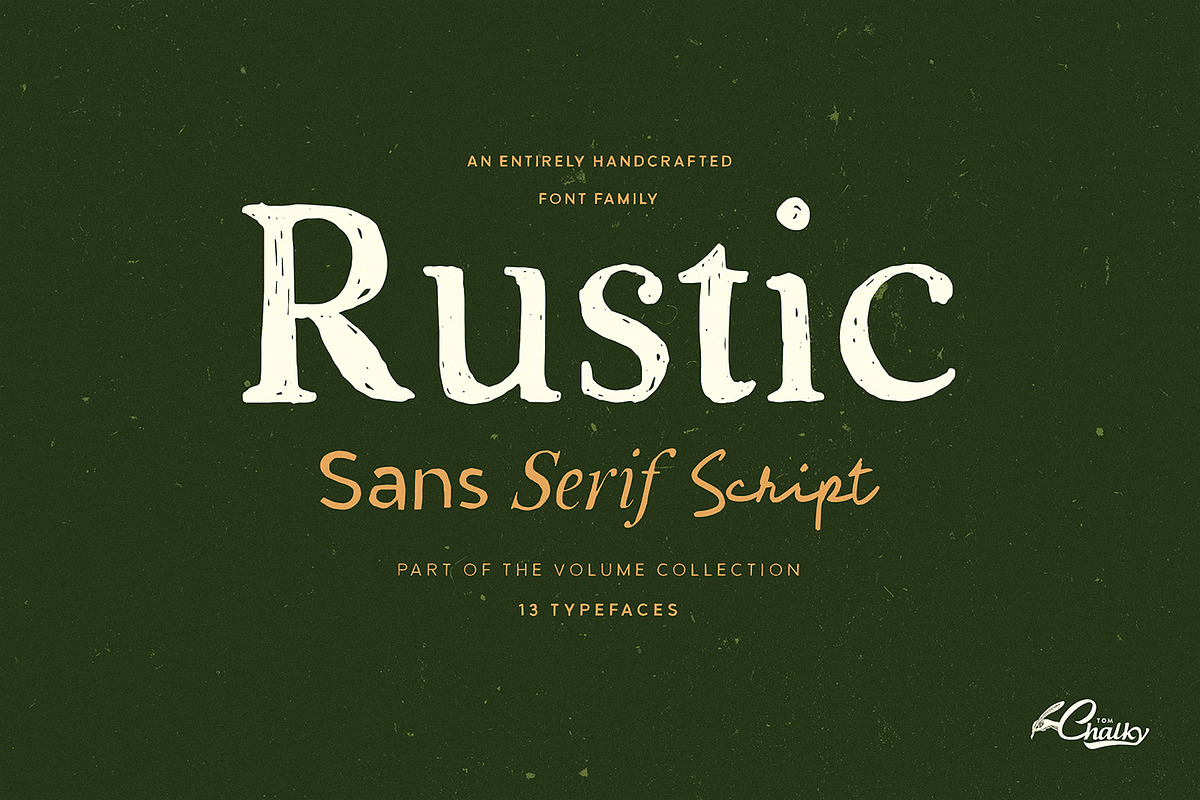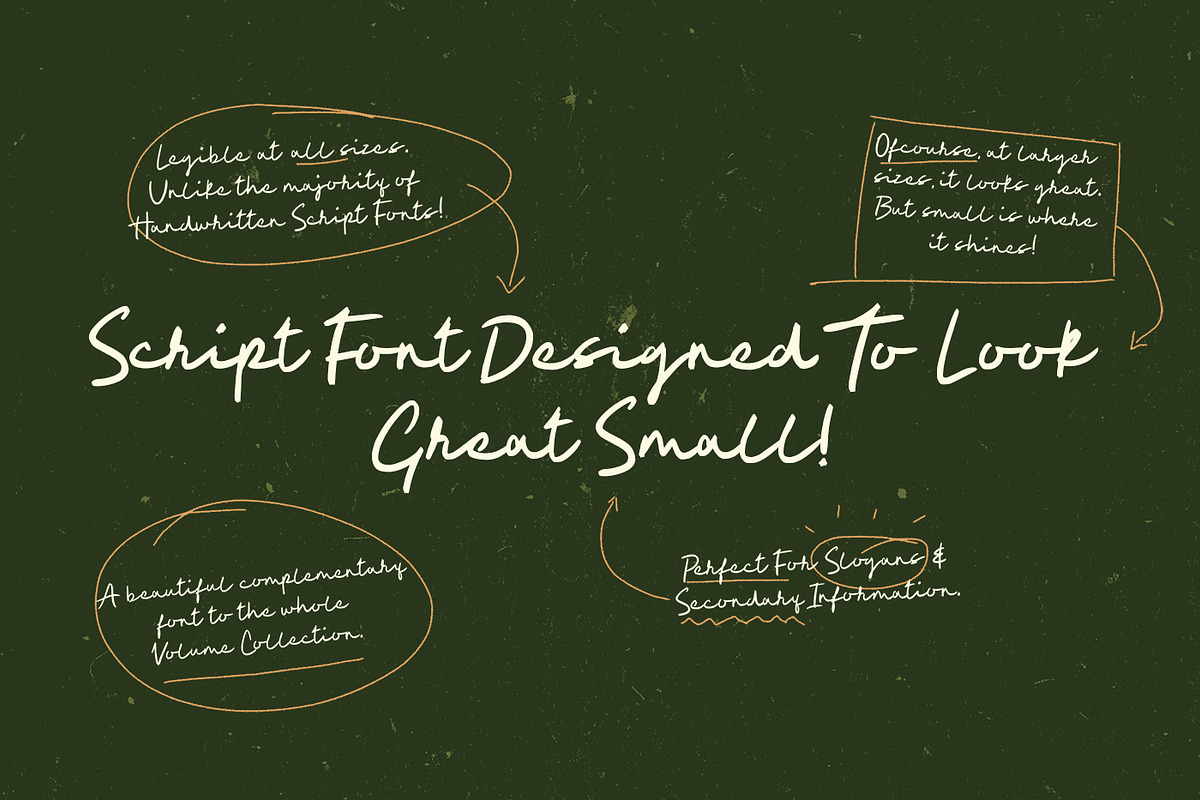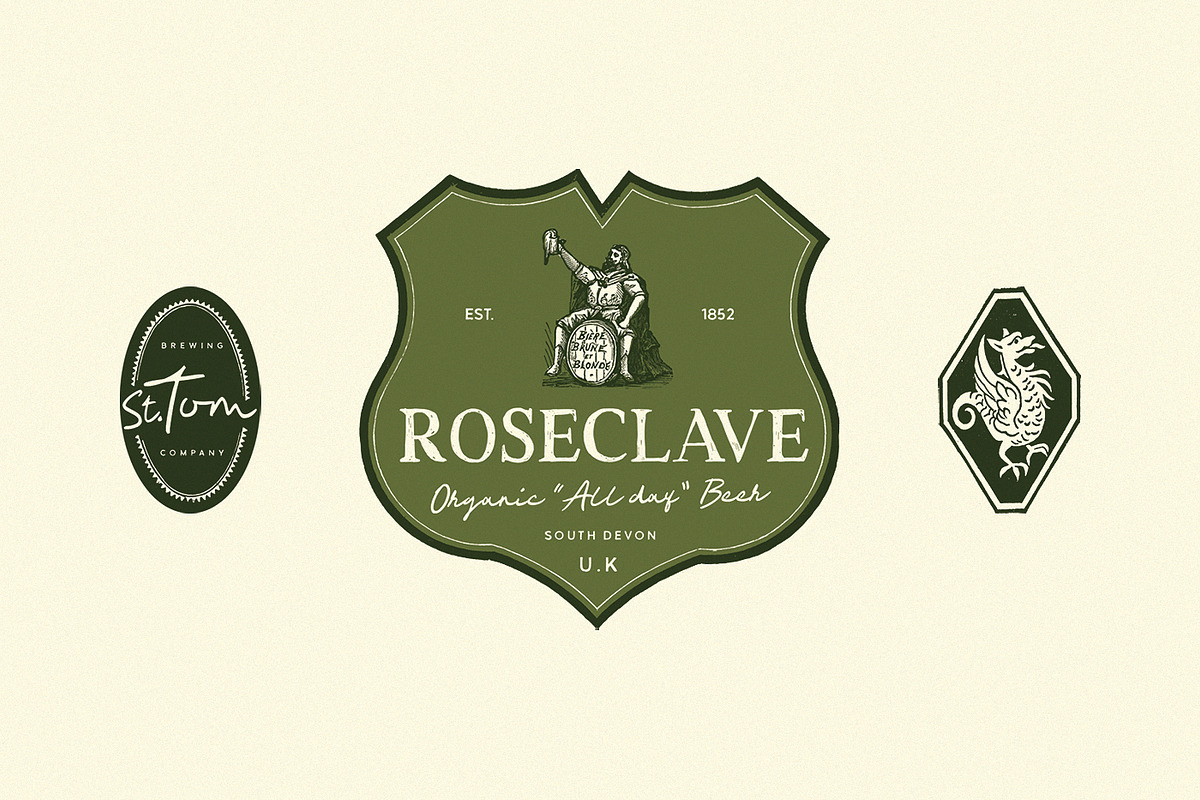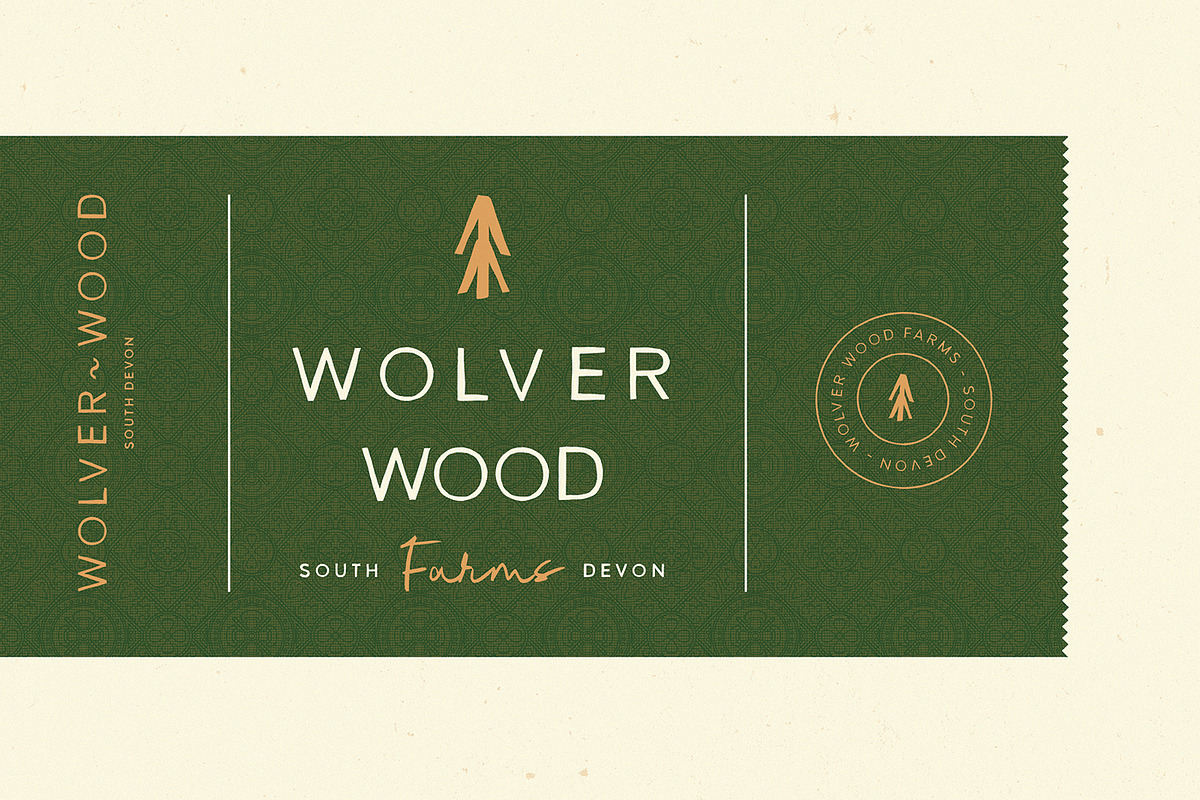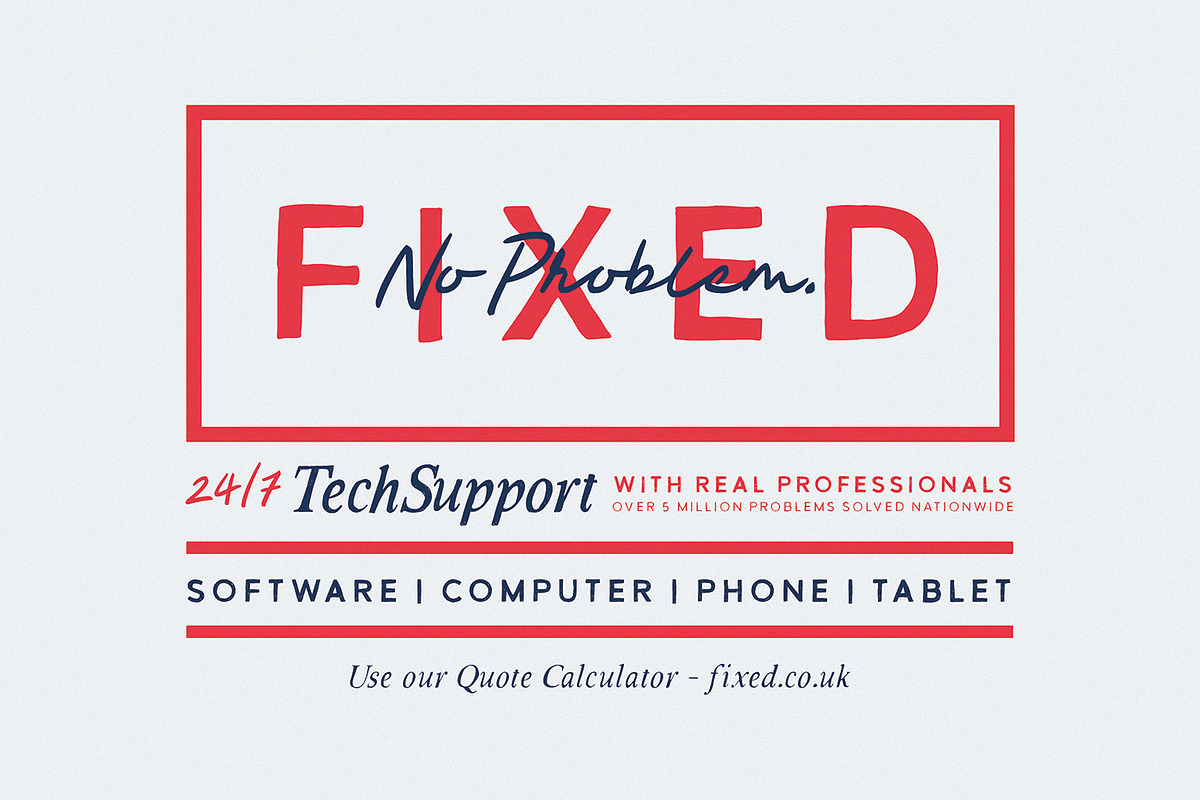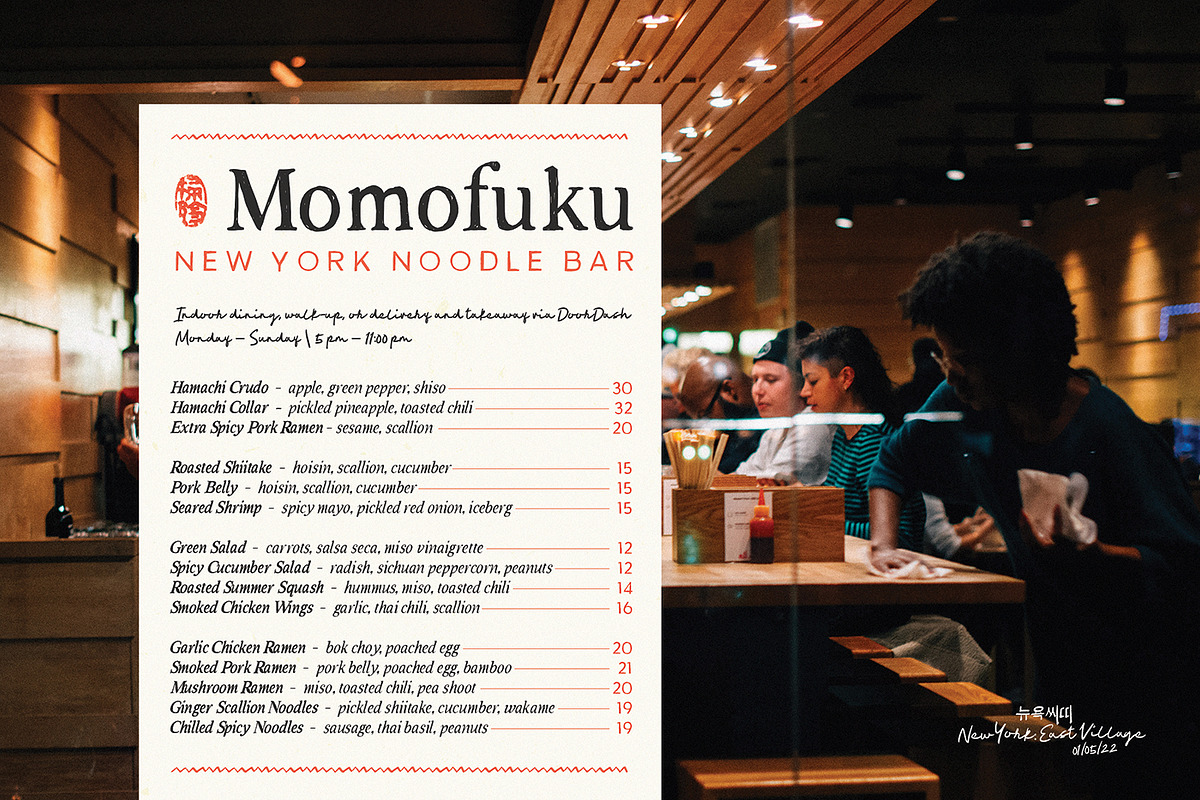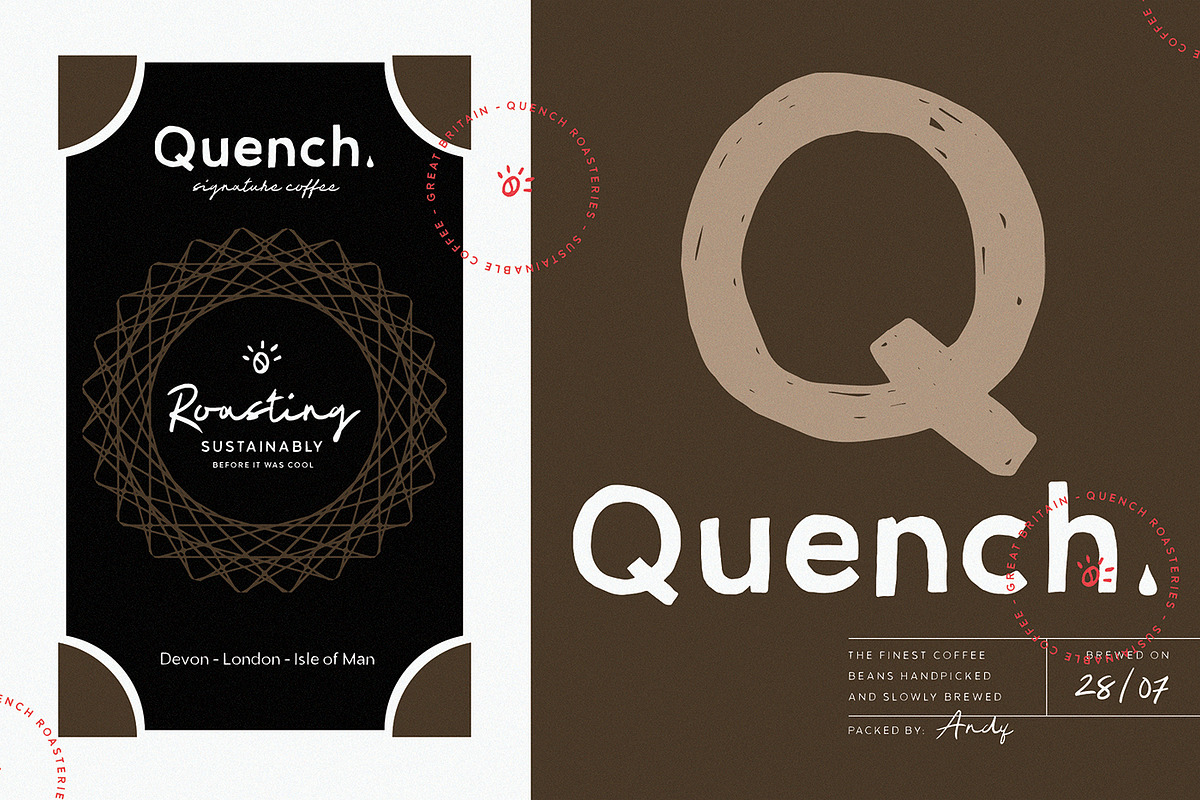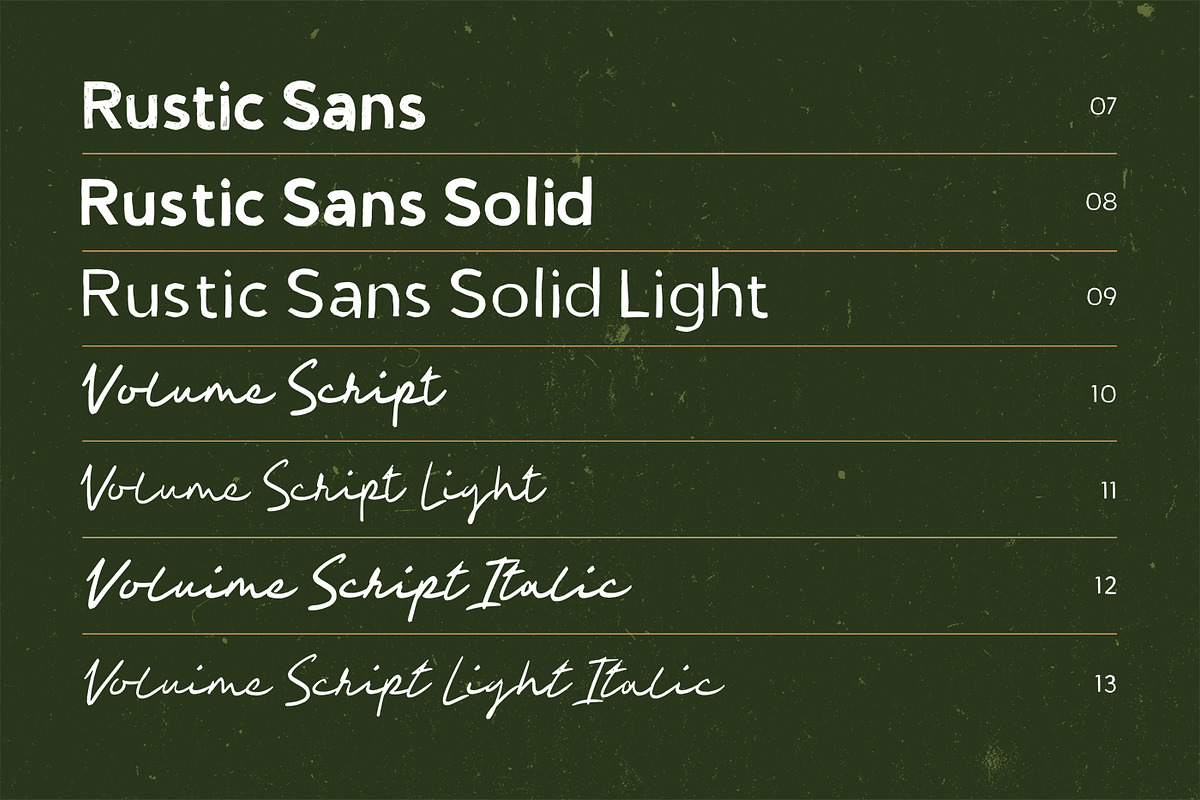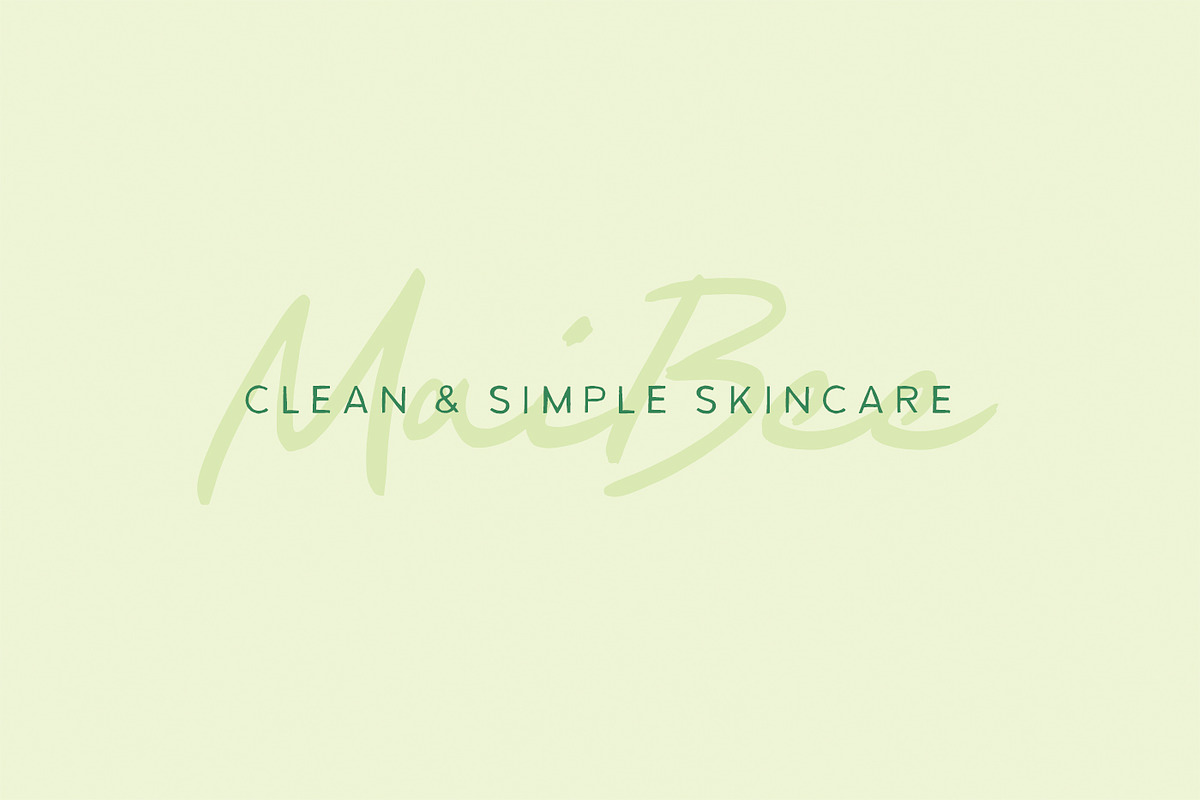
Rustic - 13 Handcrafted Fonts
Introducing Rustic 13 Handcrafted fonts designed to complement one another beautifully, this collection is perfect for projects involving organic/handmade/local/human-centric products and services.